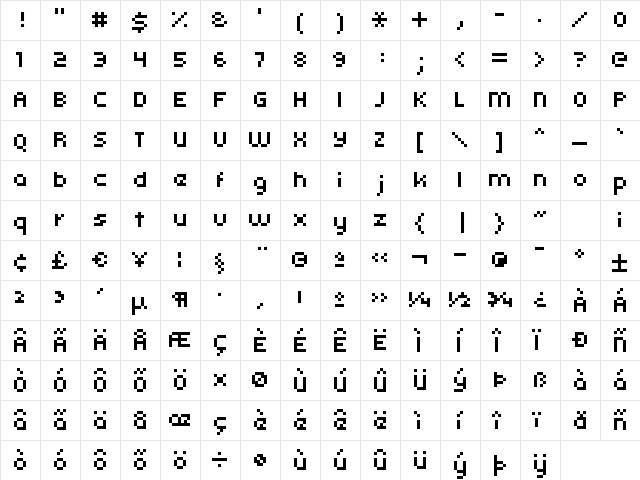
kroeger 05_56 Regular
| Foundry | Adobe Systems Incorporated |
| Designer | Craig Kroeger |
Design Context for kroeger 05_56 Typeface
kroeger 05_56 offers clean, dependable letterforms without strong stylistic allegiance, making it a practical choice for designers who need flexibility.